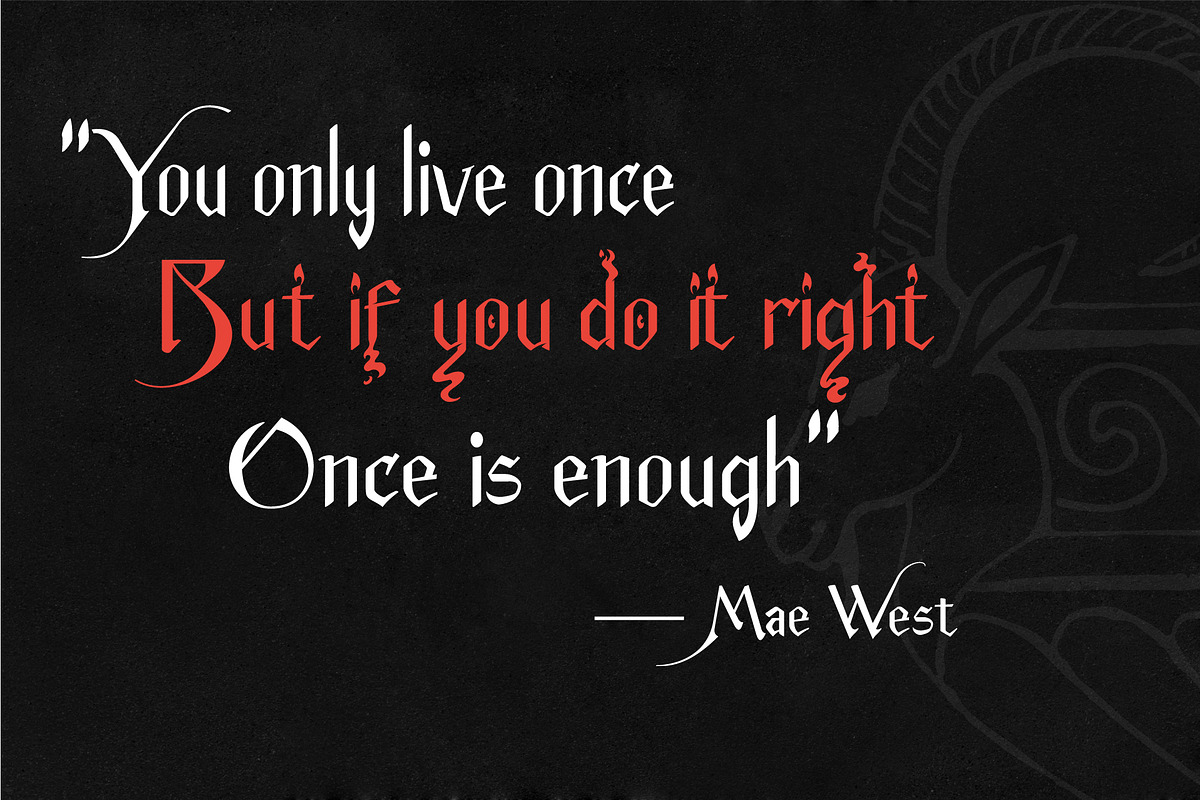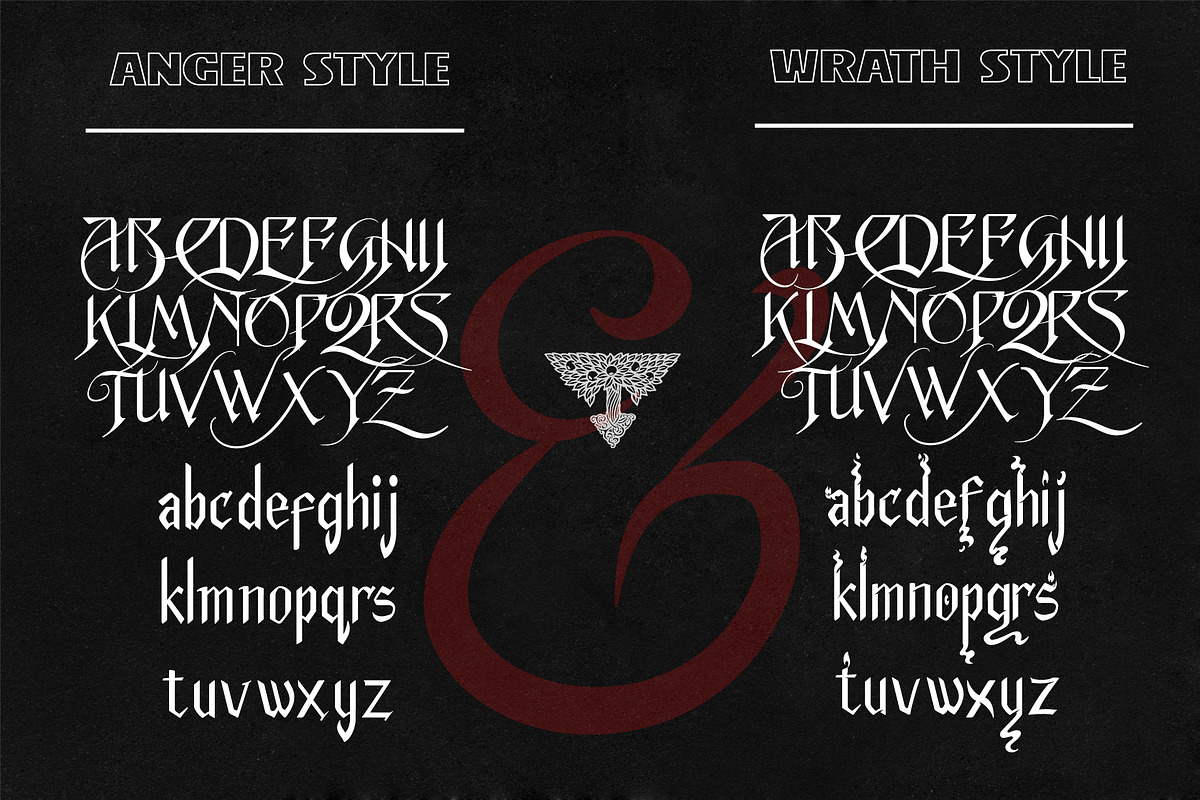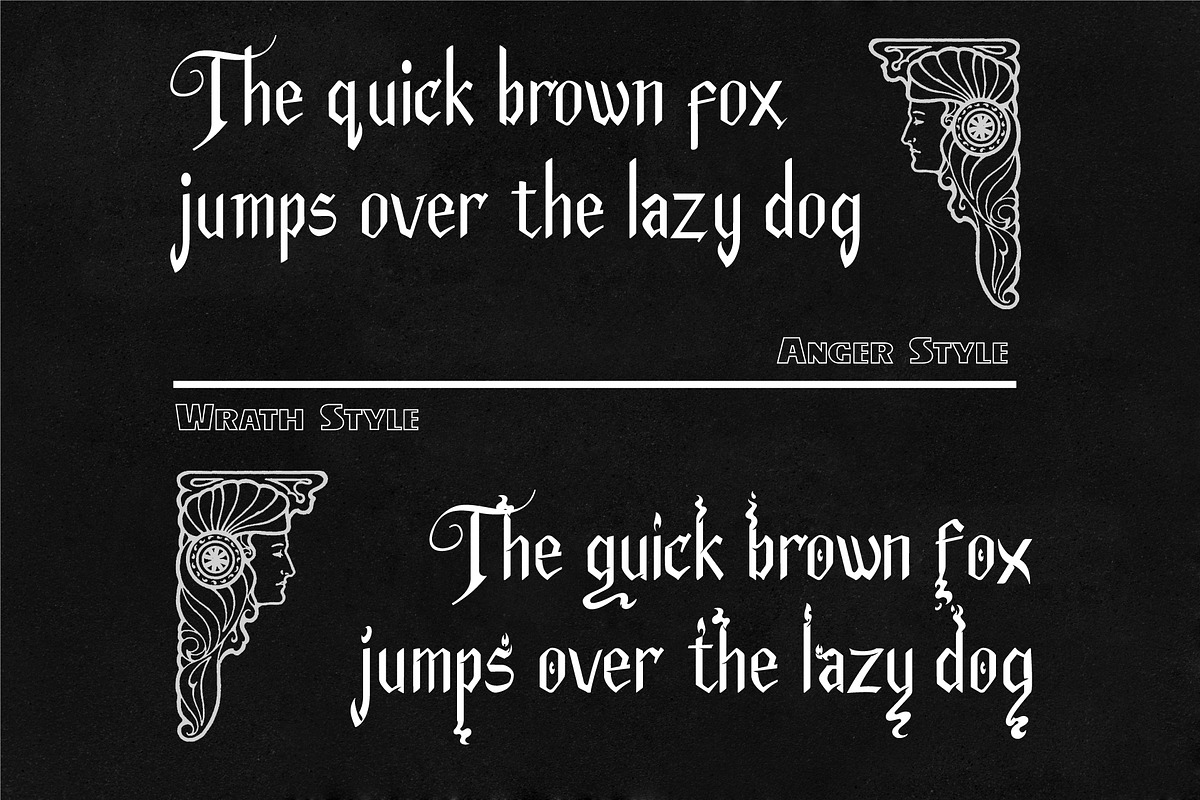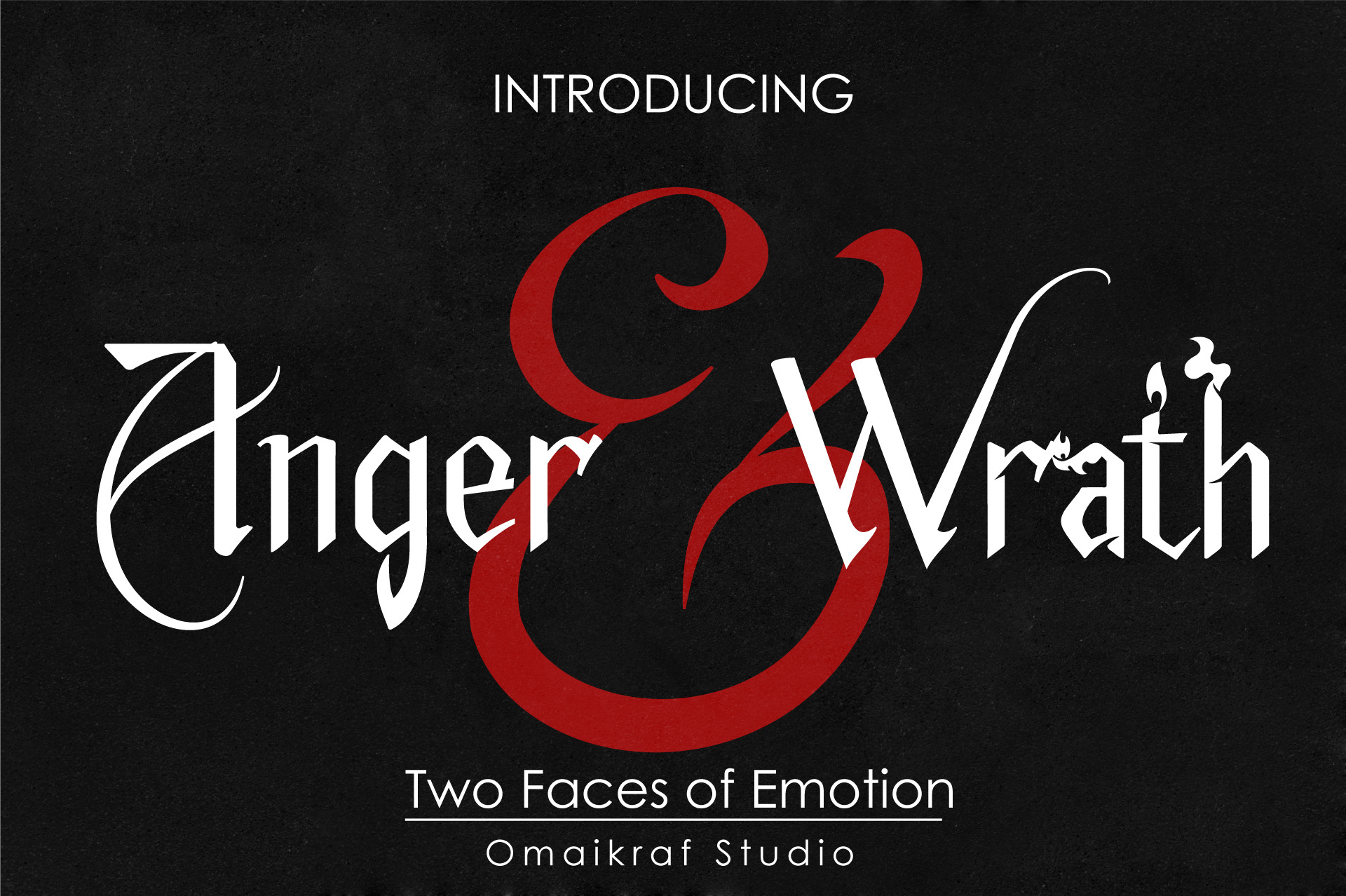
Anger & Wrath | Duo Emotion Fonts
Anger and Wrath is a latin typography with an extra styles of fire ornaments. This set of fonts can be your alternative option to your lettering design, posters, flyers, invitations, and other displayed products.